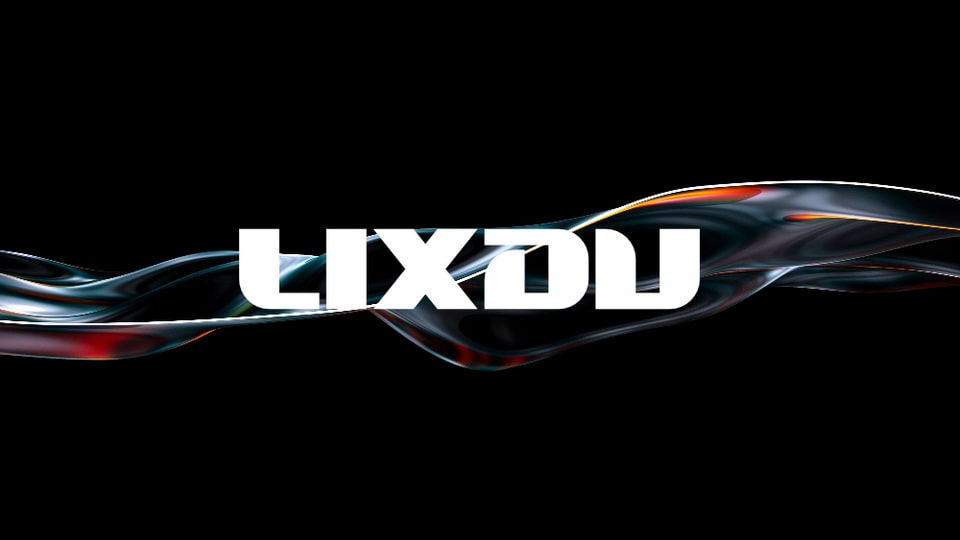
Download Lixdu font, a bold futuristic typeface. If you love technology maybe you must use Lixdu font for your logo and also other types of works.
Designer: Offoco